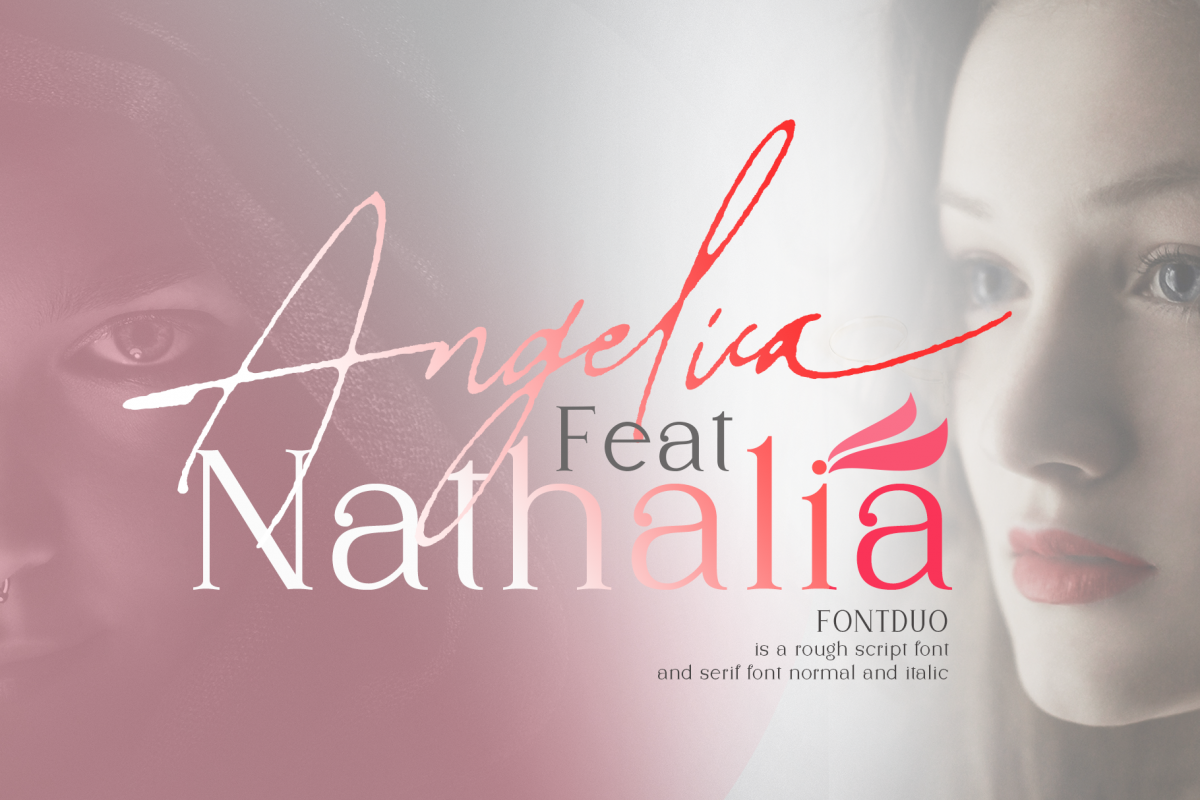
Angelica Feat Nathalia
Angelica Feat Nathalia are two different font types; Angelica is a script font with typical handwriting using liquid ink that looks rough;Nathalia is a normal and italic serif font with its delicate and gentle characteristic.  It is perfect for invitations, signatures, blogs, social media, business cards, product brands.Angelica Feat Nathalia has style standards, Stylistic Alternate and ligatures. and includes uppercase and lowercase letters, numbers and punctuation.FILE INCLUDE